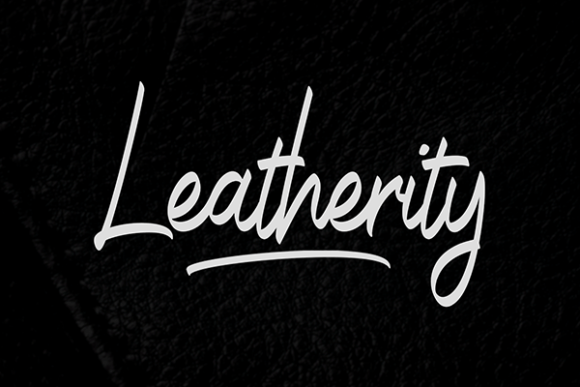
Introducing Leatherity Font: A Handwritten Typeface with a Personal Touch
Are you looking for a font that can add a personal touch to your design projects? Look no further than Leatherity Font, a unique and stylish typeface that is made from hand scratches that are digitally processed to produce typical handwritten curves and smooth digital shapes.
What is Leatherity Font?
Leatherity Font is a carefully crafted font that is designed to mimic the look and feel of handwritten text. The font is created from hand scratches that are then digitally processed to produce smooth and flowing curves, giving it a natural and organic look.
The font is perfect for projects that require a personal touch, such as photography logotypes, aesthetic restaurants or coffee shops logos, and wedding and engagement projects. The font’s unique and stylish design makes it stand out from other fonts, and its versatility ensures that it can be used in a wide range of design applications.
Key Features of Leatherity Font
Leatherity Font comes with a range of features that make it an ideal choice for designers. Some of the key features of the font include:
- Handwritten curves and smooth digital shapes: The font’s unique design gives it a natural and organic look that is perfect for projects that require a personal touch.
- All standard characters: The font includes all standard characters, making it easy to use for a wide range of design applications.
- Numbering: The font includes numbering, making it perfect for projects that require numerical text.
- Natural ligature: The font includes natural ligatures, which give it a more natural and organic look.
- Natural swashes: The font includes natural swashes, which add a touch of elegance and sophistication to the text.
- Multilingual support: The font includes multilingual support for a range of languages, including Γ€ ΓΆ ΓΌ Γ Γ Γ Γ ΒΏ Β‘.
Uses of Leatherity Font
Leatherity Font is a versatile font that can be used in a wide range of design applications. Some of the most popular uses of the font include:
- Photography logotypes: The font’s unique and stylish design makes it perfect for photography logotypes.
- Aesthetic restaurants or coffee shops logos: The font’s elegant and sophisticated design makes it perfect for restaurants or coffee shops that want to create a unique and memorable brand.
- Wedding and engagement projects: The font’s romantic and elegant design makes it perfect for wedding and engagement projects.
- Personal stationery: The font’s unique and stylish design makes it perfect for personal stationery, such as invitations and greeting cards.
Benefits of Using Leatherity Font
There are many benefits to using Leatherity Font in your design projects. Some of the most significant benefits include:
- Unique and stylish design: The font’s unique and stylish design makes it stand out from other fonts.
- Versatility: The font’s versatility ensures that it can be used in a wide range of design applications.
- Elegant and sophisticated: The font’s elegant and sophisticated design makes it perfect for projects that require a touch of luxury.
- Easy to use: The font is easy to use and comes with a range of features that make it easy to customize.
Tips for Using Leatherity Font
Here are some tips for using Leatherity Font in your design projects:
- Use it sparingly: The font’s unique and stylish design makes it perfect for use sparingly, such as in headings or titles.
- Experiment with different colors: The font’s elegant and sophisticated design makes it perfect for use with a range of colors.
- Pair it with other fonts: The font’s versatility ensures that it can be paired with other fonts to create a unique and stylish design.
Leatherity Font is a unique and stylish typeface that is perfect for designers who want to add a personal touch to their design projects. The font’s elegant and sophisticated design makes it perfect for a wide range of design applications, from photography logotypes to wedding and engagement projects.
With its range of features, including handwritten curves and smooth digital shapes, all standard characters, numbering, natural ligature, natural swashes, and multilingual support, Leatherity Font is a versatile font that can be used in a wide range of design applications.
Whether you’re a designer looking for a unique and stylish font to add to your collection, or a business looking for a font that can help you create a memorable brand, Leatherity Font is an excellent choice.